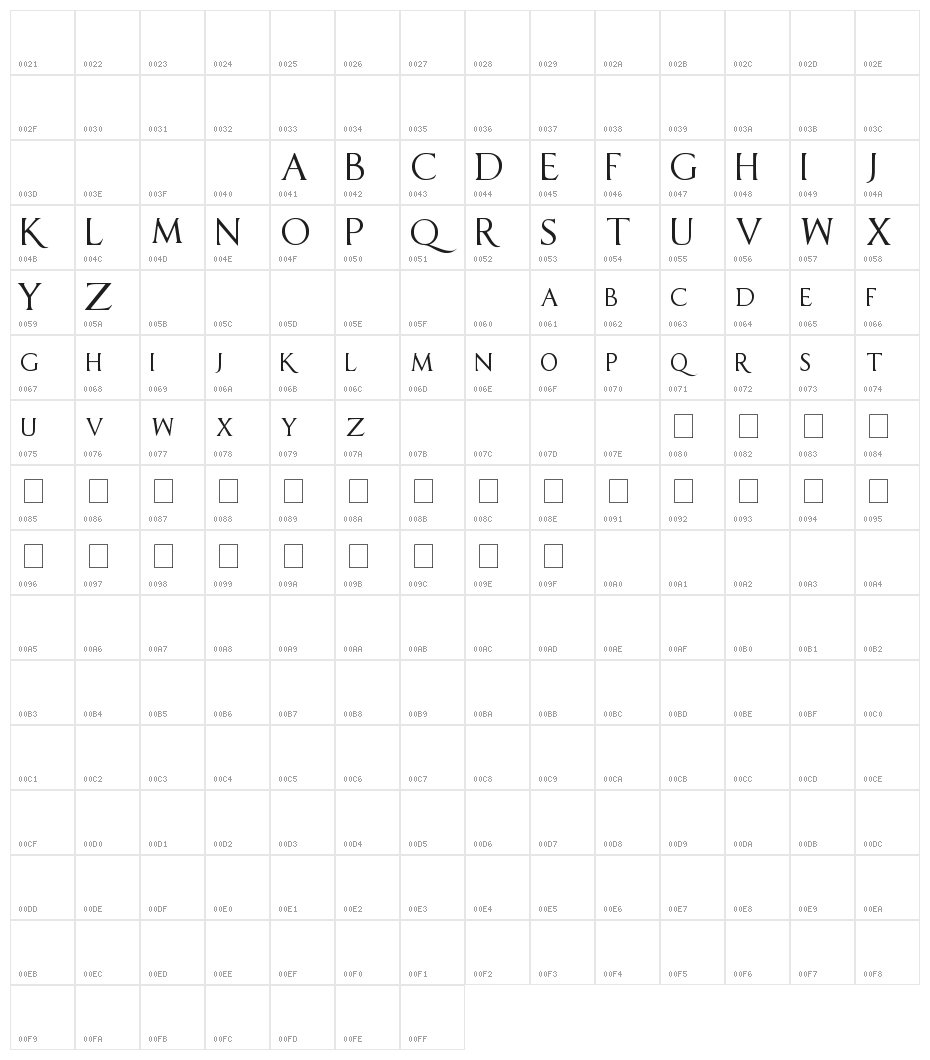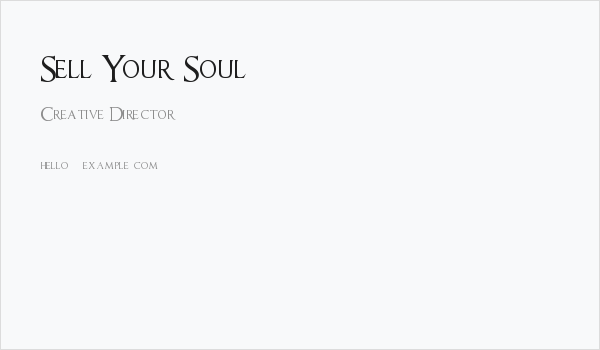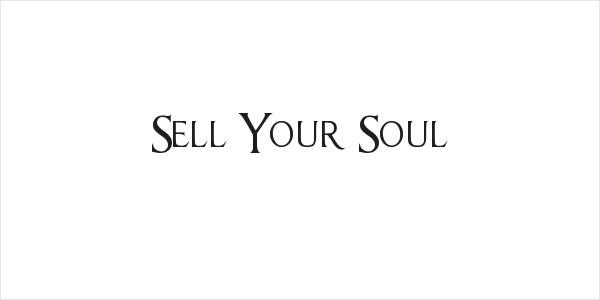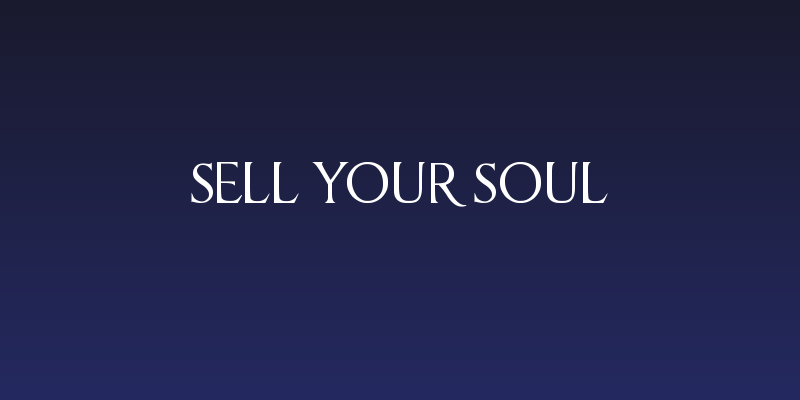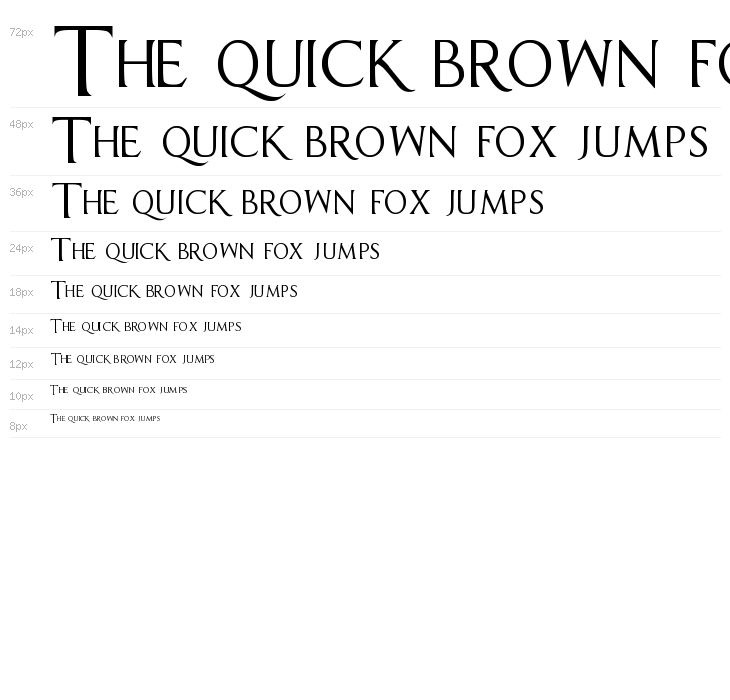
Sell Your Soul Font
Sell Your Soul Description
This font features a classic and elegant serif style with a touch of flair, characterized by its sharp, pointed serifs and subtle curves. The uppercase letters are distinct with a slight medieval influence, evident in the unique treatment of characters like 'Q' and 'R' which have decorative tails. The lowercase letters maintain a consistent style, offering a harmonious blend with the uppercase. The numerals are clear and traditional, ensuring readability. Special characters are designed to match the overall aesthetic, making this font suitable for a variety of formal and decorative uses.
Overall StyleClassic
Use CaseHeadlines, Logos, Invitations
Proposed ProjectsIdeal for book covers, historical themed projects, formal invitations, and branding that requires a touch of elegance.